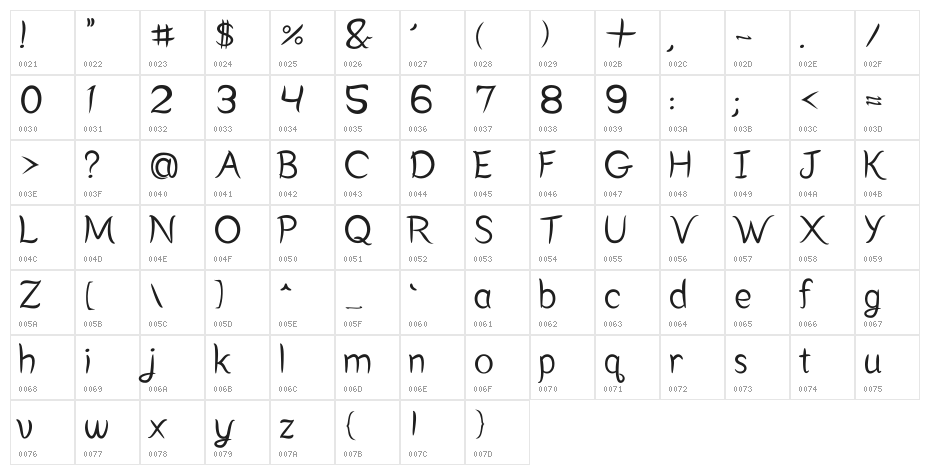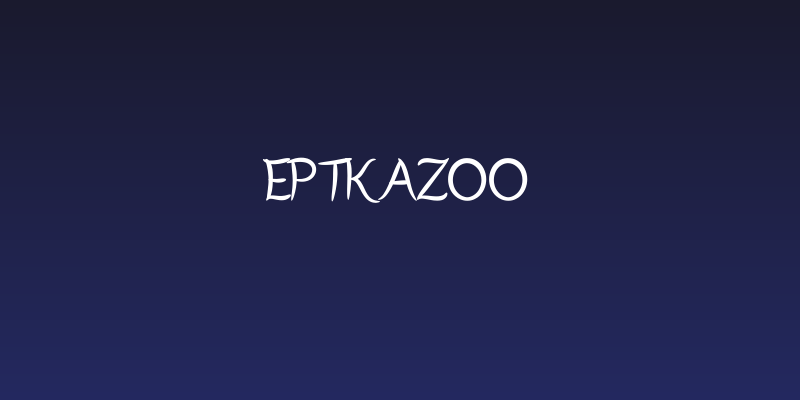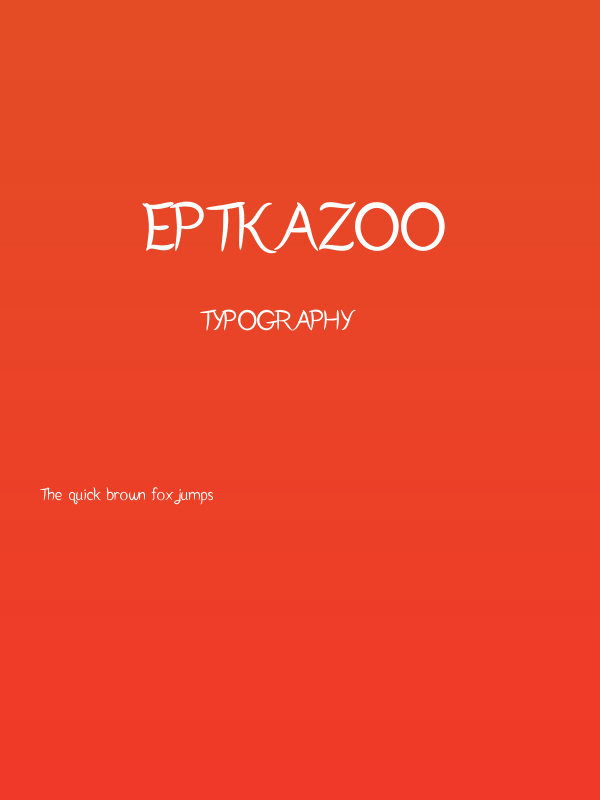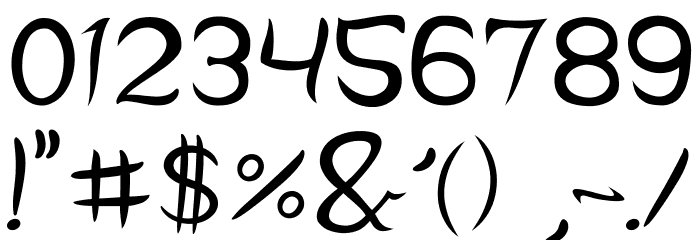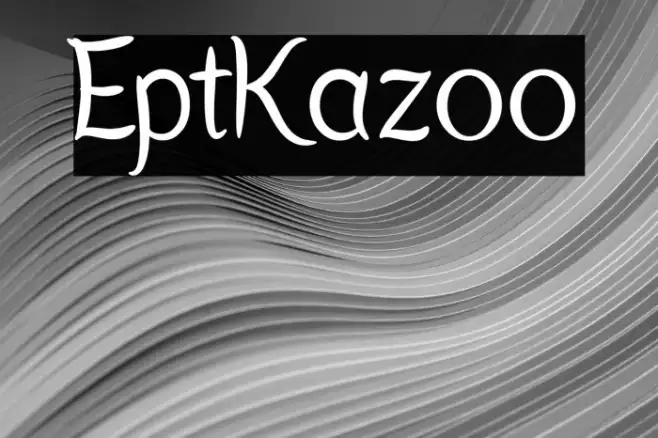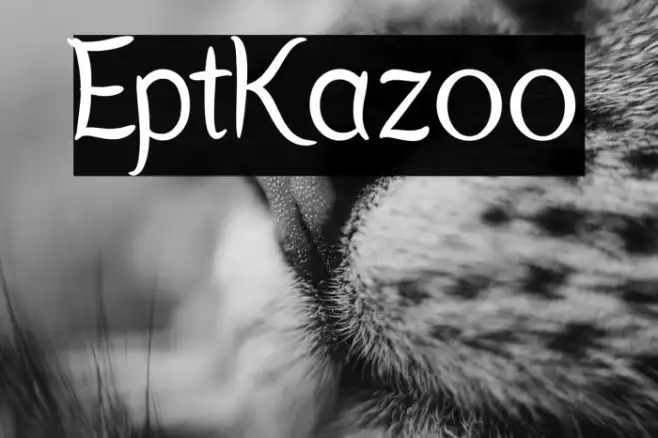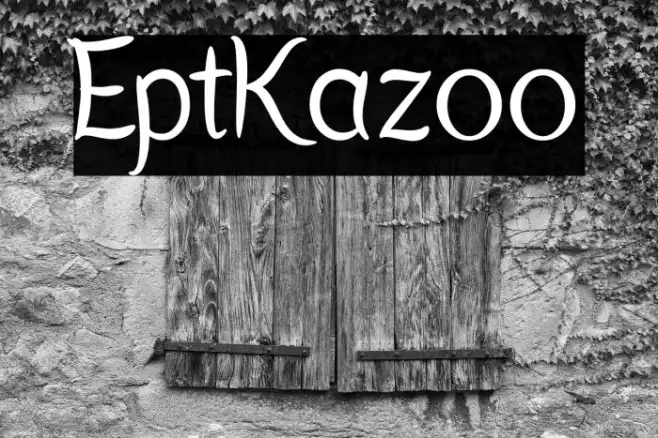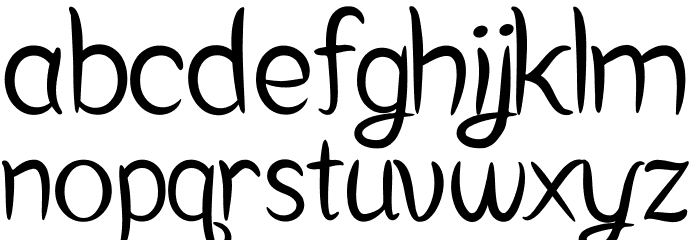
EptKazoo Font
EptKazoo Description
This font features a playful and whimsical design, characterized by its flowing and slightly irregular strokes. The uppercase letters exhibit a dynamic movement, with strokes that vary in thickness, giving a sense of energy and spontaneity. The lowercase letters maintain this lively style, with rounded forms and occasional loops that add to its charm. The numerals are bold and consistent with the overall style, ensuring readability while maintaining the font's unique character. Special characters are creatively designed, complementing the alphabet with their quirky and artistic flair.